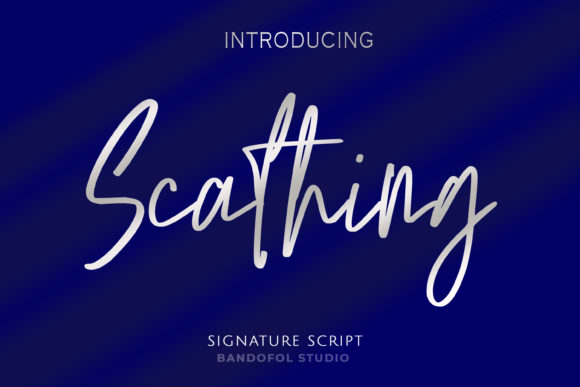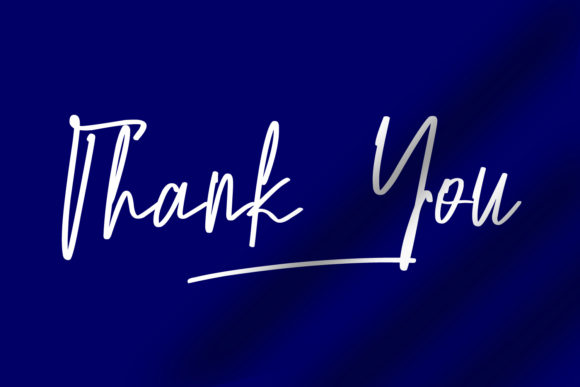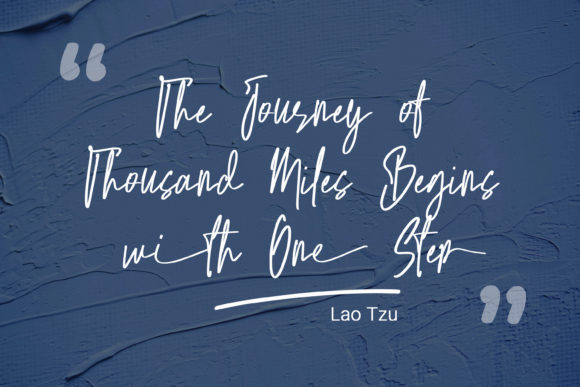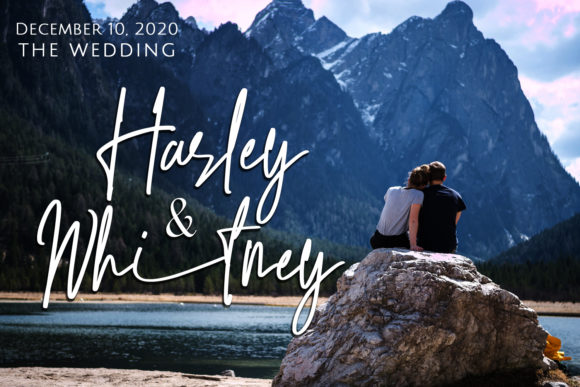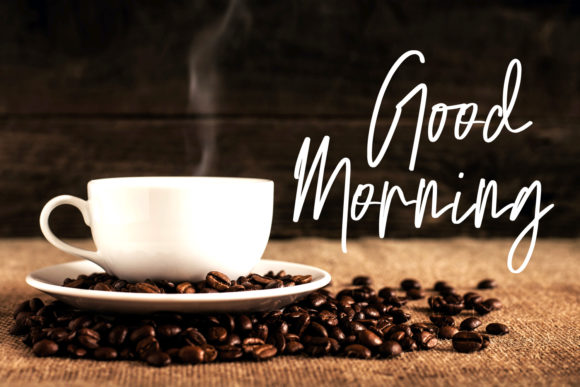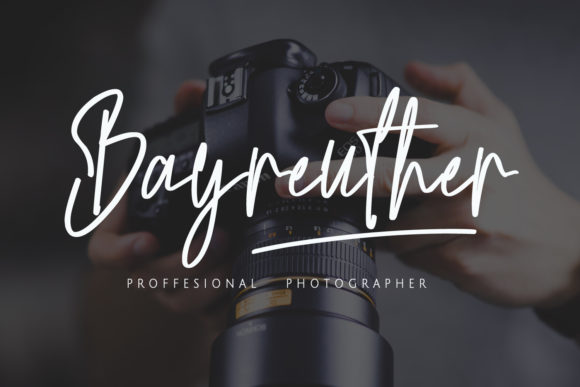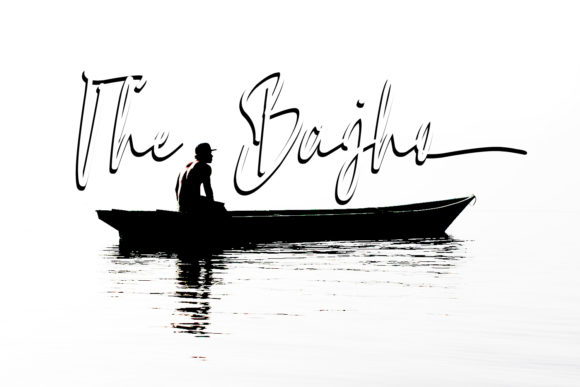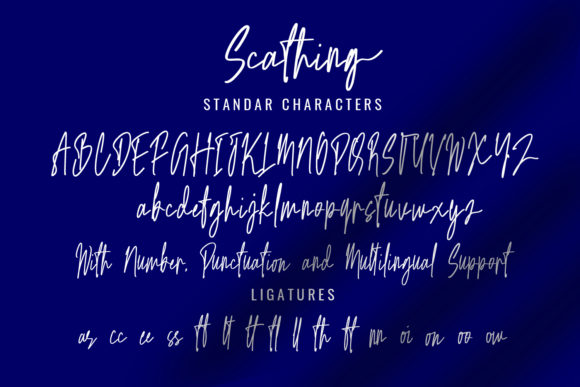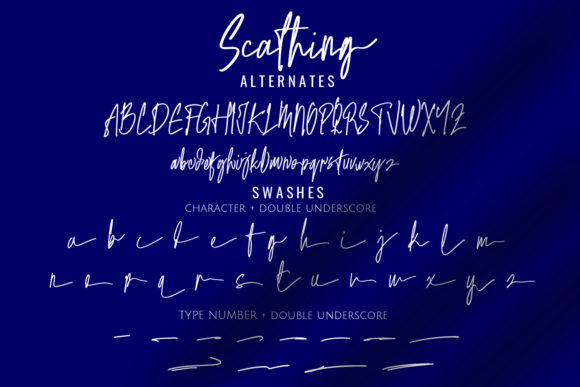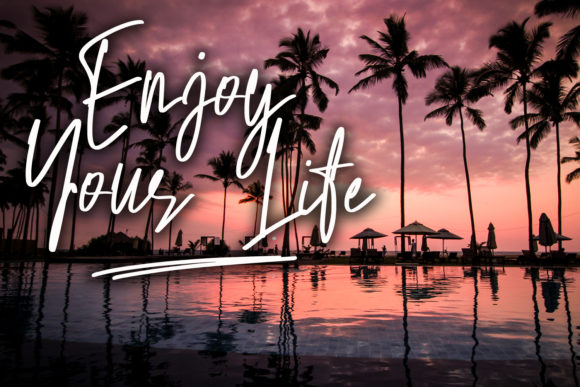
Scathing Font
About Scathing Font
Scathing is a relaxed and asymmetrical handwritten font. Stylish and elegant, this font will make each of your designs stand out!